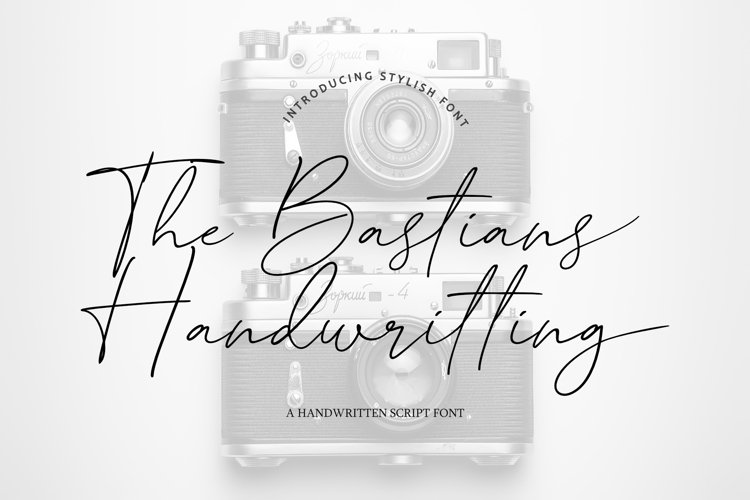
The Bastians Handwritting is an elegant handwritten unique flow font with natural and organic looks.
This font is made in a modern style with a very natural typeface, elegantly, very casual and suitable for your various design needs Perfect for logo, branding, tittle, social media posts, advertisements, product packaging, product designs, label, photography, watermark, special event, magazine, web design, etc.
- Stylistic Alternates
- múltílïngûãl süppórts
- Nearly 400 Glyphs